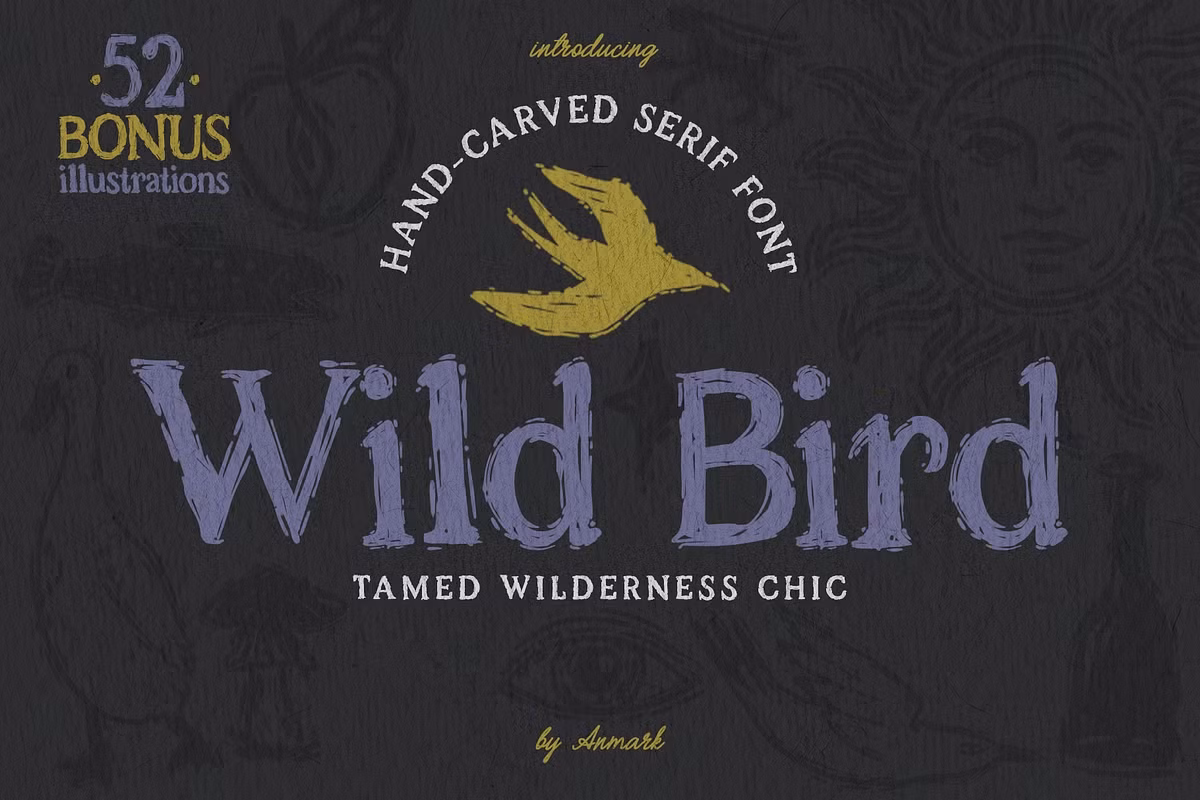
Wild Bird – Hand Crafted Font Free Download is a rustic and artistic typeface that captures the essence of handmade creativity and natural expression. Please note, you are required to purchase this font for commercial use. It is available for free download for testing and personal projects only.
With its uneven lines, organic curves, and free-spirited charm, Wild Bird is perfect for nature-inspired branding, artisan packaging, outdoor-themed designs, quotes, DIY projects, and boho-style content. It adds a raw, personal touch that feels earthy, wild, and beautifully imperfect.